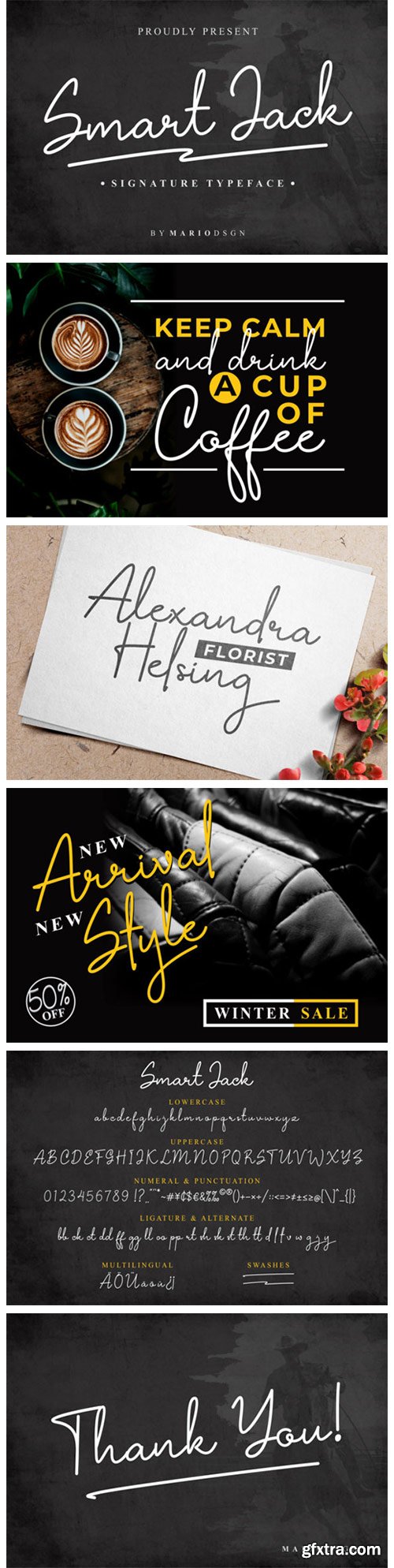
Smart Jack Font
Smart Jack is an elegant and modern handwritten font. It is perfect for your creative projects such as logo and branding, wedding invitation designs, product packaging, product designs, label, social media posts, advertisements, photography, watermark, and any projects that need handwriting style. This font is PUA encoded which means you can access all of the glyphs and swashes with ease!